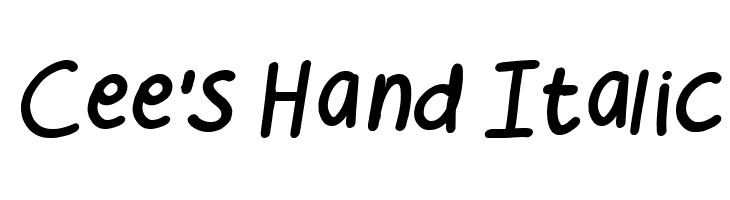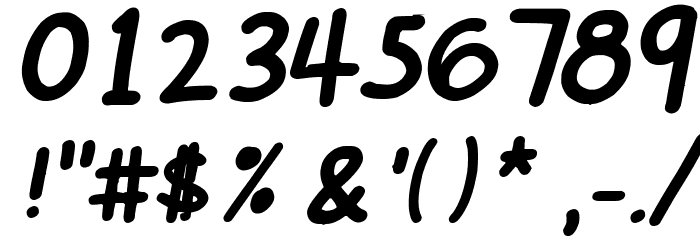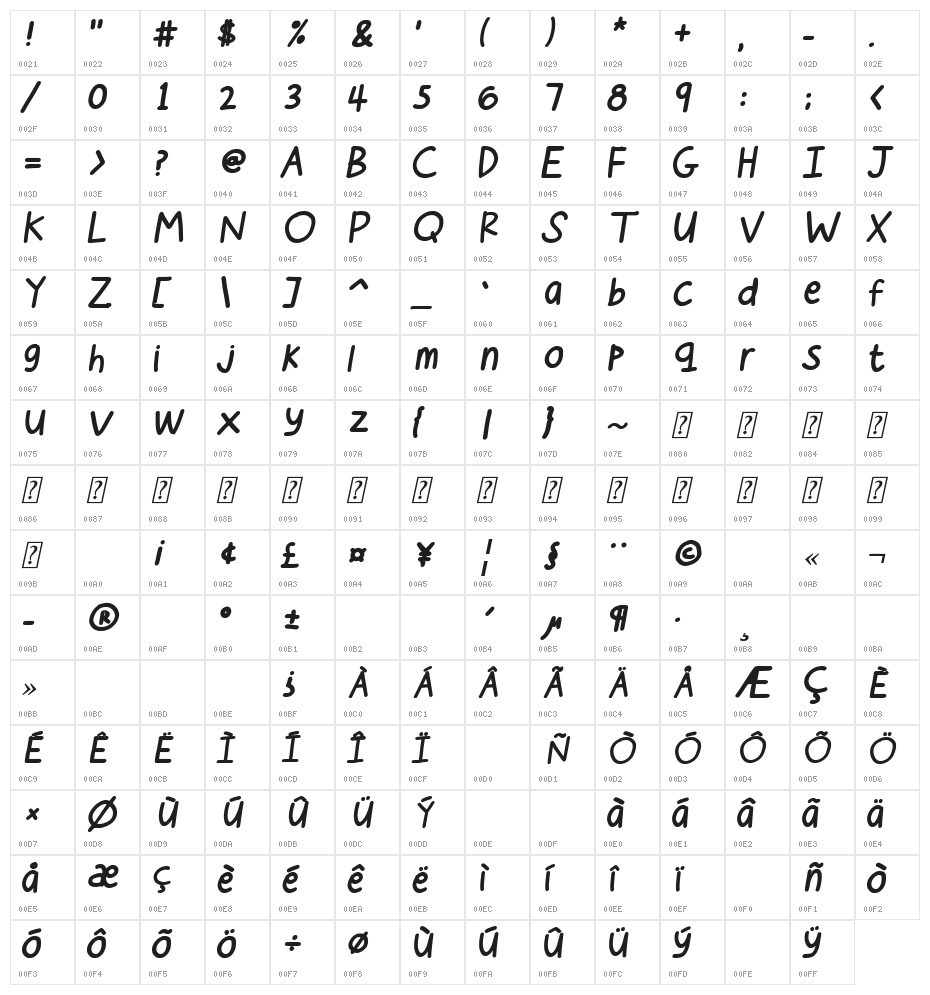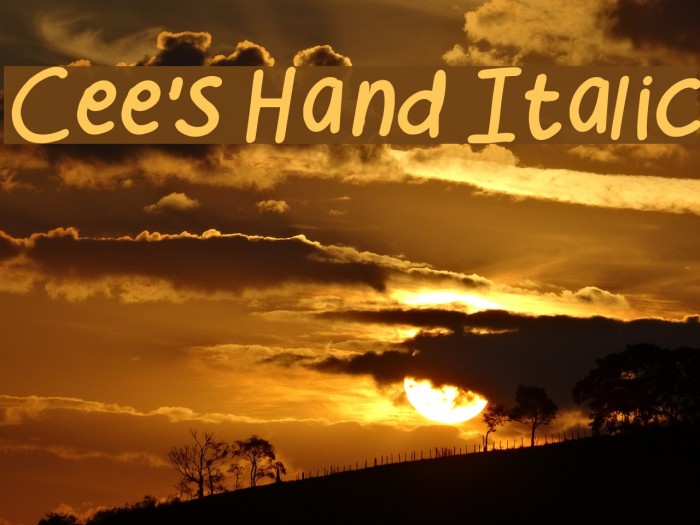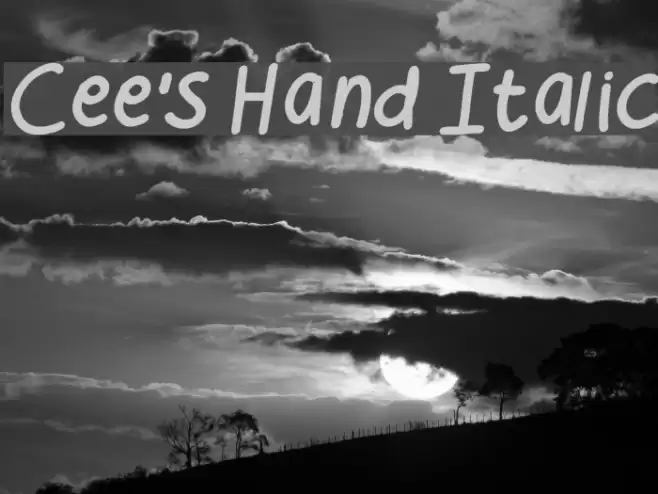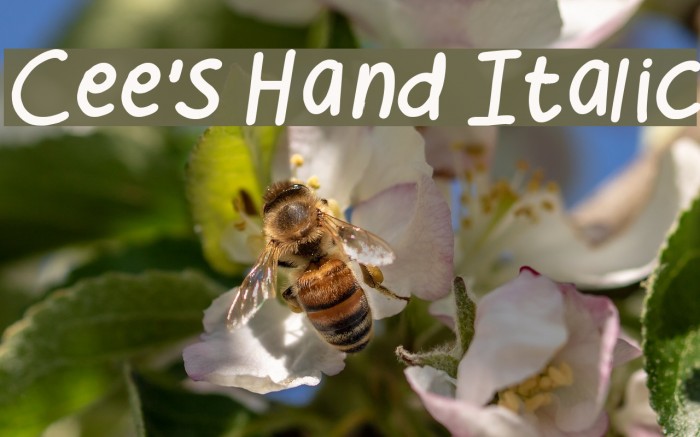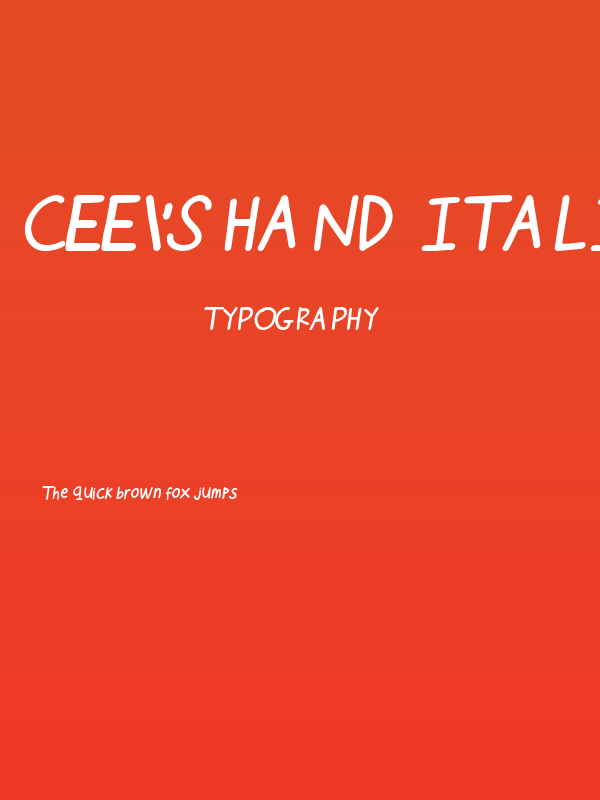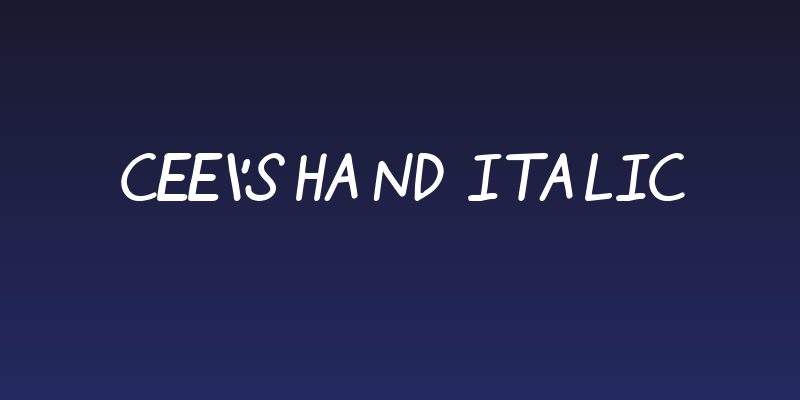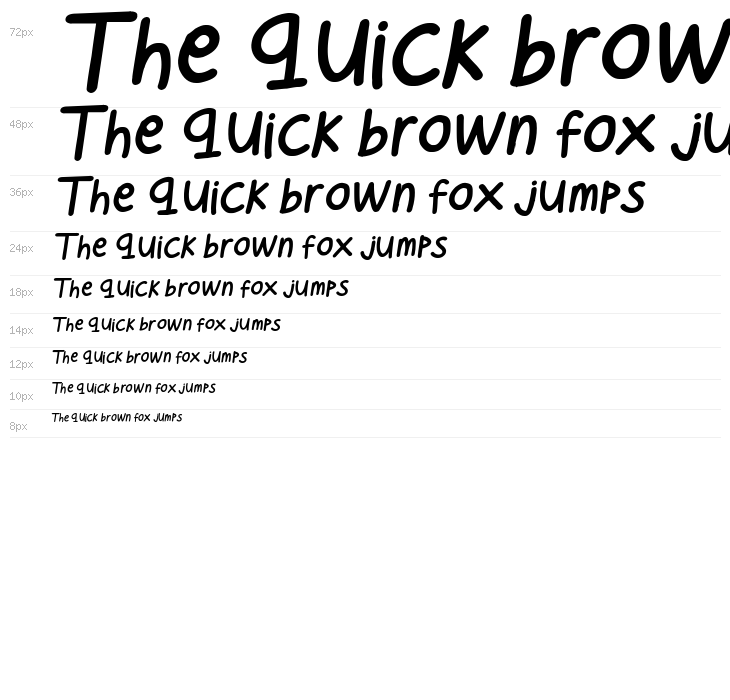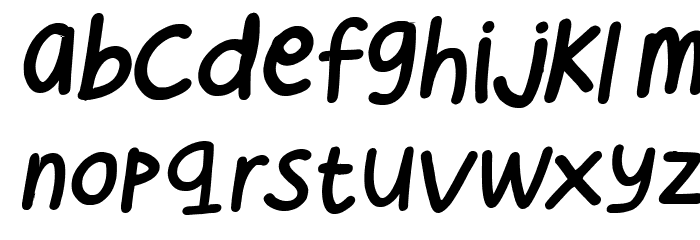
Cee's Hand Italic Font
Cee's Hand Italic Description
This font features a casual, handwritten style with a slight slant, giving it an informal and approachable feel. The characters are rounded and smooth, with consistent stroke widths that maintain a uniform appearance throughout. The uppercase and lowercase letters are well-proportioned, with a playful yet legible design. The numerals and special characters complement the alphabetic characters, maintaining the same handwritten aesthetic. This font is ideal for projects that require a personal touch, such as invitations, greeting cards, or informal branding.
Overall StyleCasual
Use CaseHeadlines, Informal text, Personal projects
Proposed ProjectsIdeal for invitations, greeting cards, personal branding, and informal communication.